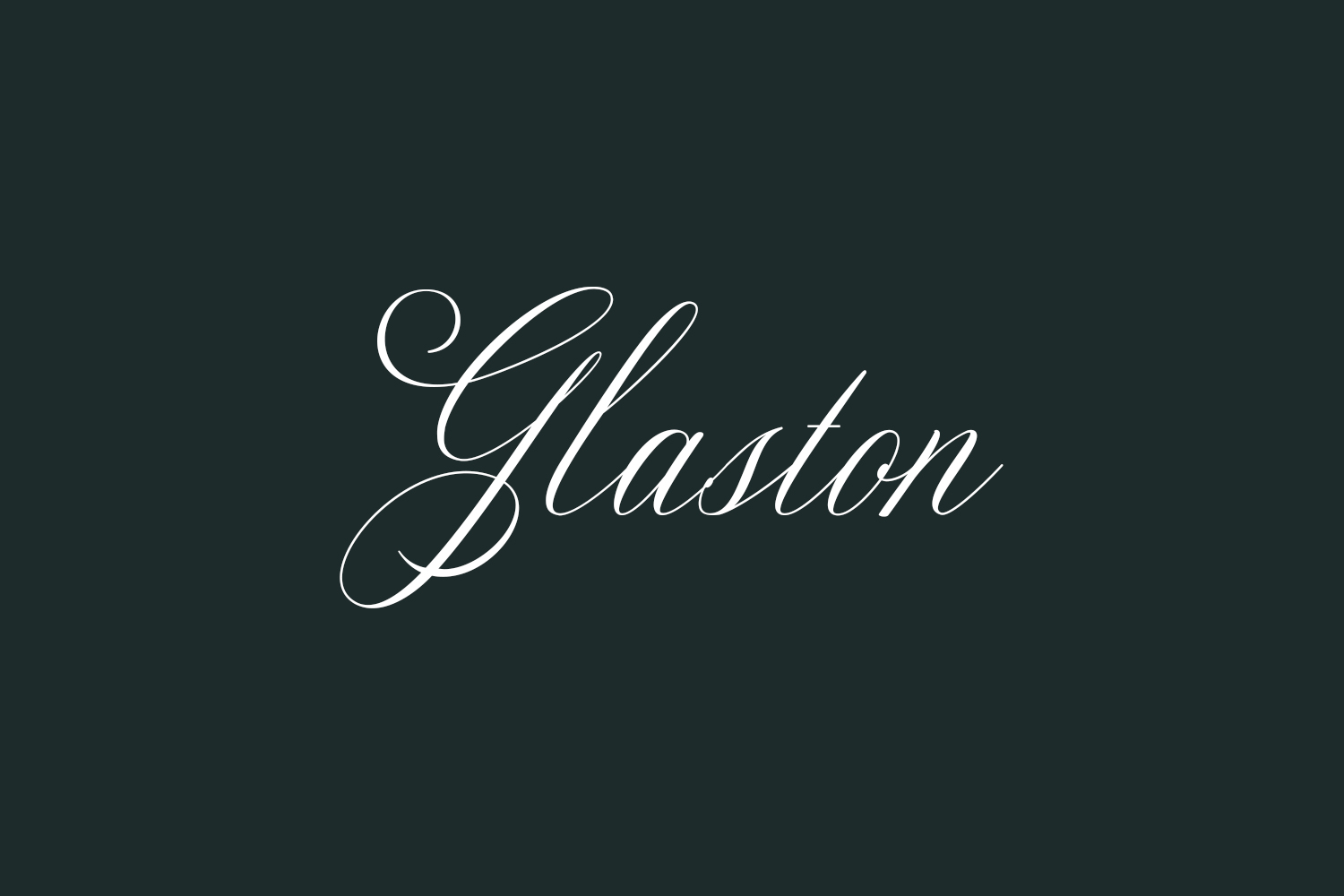
Glaston Free Font is an incredibly romantic typeface with bold swashes. It will turn any design project into a true standout. Glaston Free Font was designed by EFOS Studio and is free for personal use only. Please purchase the full version for commercial use.